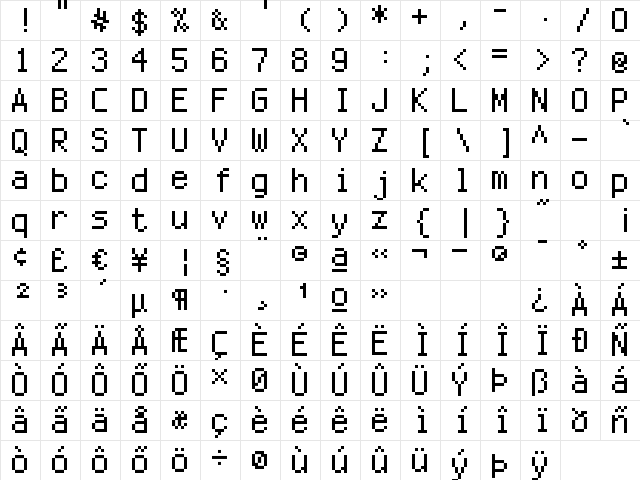
mono 08_56 Regular
Design Context for mono 08_56 Typeface
mono 08_56 uses fixed-width spacing throughout, giving it the structured, systematic character associated with coding environments and technical documentation.
Pro Tip: Use mono 08_56 with slightly increased line-height for extended reading — fixed-width spacing can feel dense in longer passages without extra breathing room.